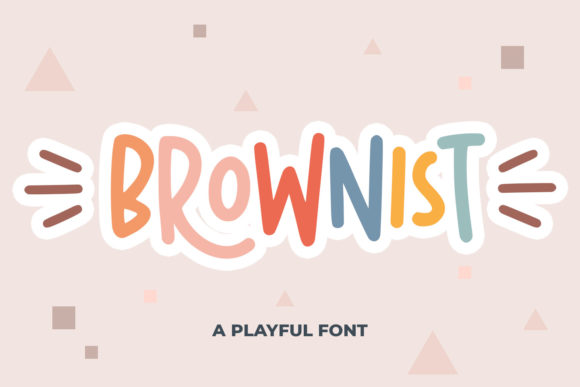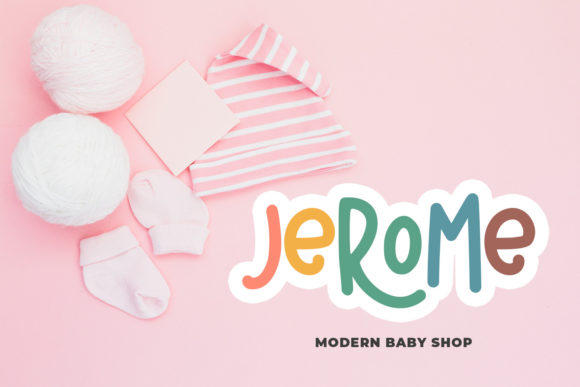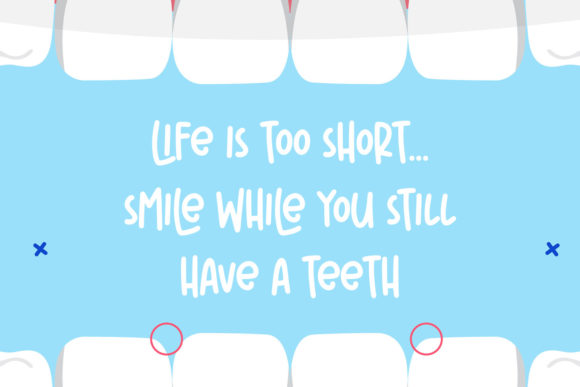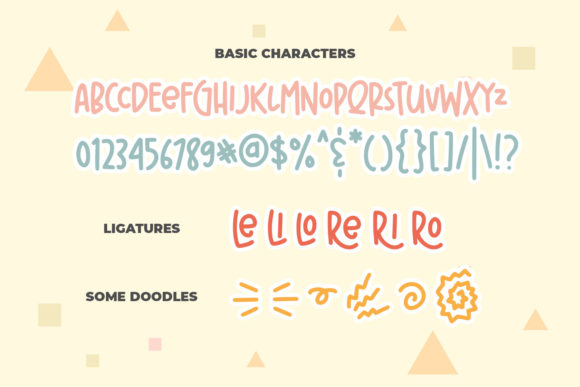
Brownist is a cute and cheerful font. It is great for t-shirt designs, quotes, mugs, tote bag designs, cards, banners, social media, and anything of craft projects.